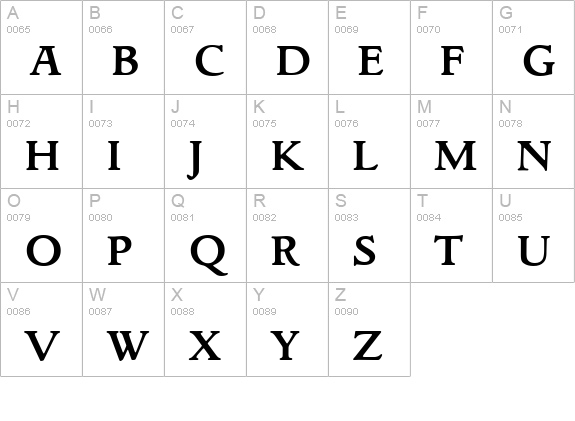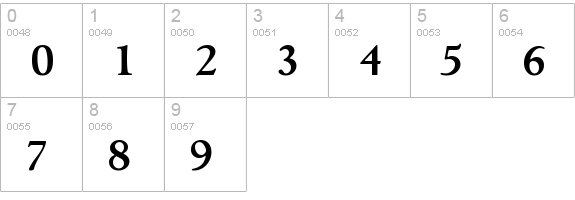
GouditaSerial-Bold Font Details
GouditaSerial-Bold is a strong, high-contrast variant in the GouditaSerial typeface family \xE2\x80\x94 well suited to headlines, attention-grabbing titles, and strong calls-to-action.
GouditaSerial-Bold font is a sleek and modern typeface that exudes sophistication and elegance. With its bold and eye-catching design, this font is perfect for making a statement in your designs. The sharp serifs and clean lines give GouditaSerial-Bold a contemporary feel that is sure to captivate your audience. But the best part? GouditaSerial-Bold font is available for free download at FontsMarket.com! You can easily access this stunning font and elevate your projects with its professional and stylish appearance. Whether you're designing a logo, creating branding materials, or crafting a standout poster, GouditaSerial-Bold is the perfect choice for adding a touch of class to your work. Download it now and let your creativity shine with this exceptional font.